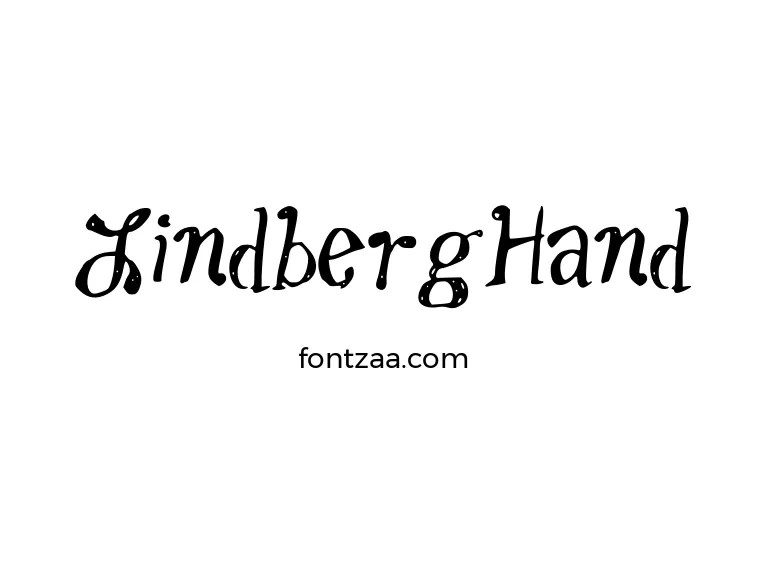
LindbergHand Font introduces a elegant typographic style that can give creative projects a more individual appearance. Designers exploring a elegant typeface can use LindbergHand Font to add a more recognizable visual voice to creative display work. Its letter shapes become especially noticeable at larger sizes, where spacing and proportions can be explored more clearly. Using generous space around the lettering can help the details of the typeface remain visible instead of competing with other elements. Different color combinations can make the same font feel subtle, energetic, premium or highly decorative. The font can be considered for projects such as invitations, wedding stationery, signatures, quotes and elegant branding. Previewing the final layout on both large and small screens helps identify spacing and readability problems early. A clean serif or sans serif companion can handle smaller text while this font remains focused on headlines and key messages. According to the available font information, the typeface is associated with Unknown Publisher. Current license information is shown as Free for personal use; checking the original documentation is recommended before client or commercial work. The most effective treatment will vary by project, so designers should compare several versions before finalizing the artwork.
Designers exploring a elegant typeface can use LindbergHand Font to add a more recognizable visual voice to headlines, branding and promotional layouts. Its letter shapes become especially noticeable at larger sizes, where spacing and proportions can be explored more clearly. Using generous space around the lettering can help the details of the typeface remain visible instead of competing with other elements. The font can work as the primary visual element in a minimal layout or as part of a more detailed composition. The font can be considered for projects such as invitations, wedding stationery, signatures, quotes and elegant branding. Print and digital layouts may require different sizing and spacing, so testing the actual output dimensions is recommended. Keeping secondary typography simple often allows the distinctive qualities of the main font to remain more visible. Source metadata currently associates the font with Unknown Publisher. Current license information is shown as Free for personal use; checking the original documentation is recommended before client or commercial work. Testing the font with the actual project text can provide a much better impression than viewing isolated sample characters.
LindbergHand Font brings a elegant personality to typography and gives designers a flexible starting point for digital and print projects. The typeface can change considerably depending on tracking, scale, alignment, background and surrounding imagery. Different color combinations can make the same font feel subtle, energetic, premium or highly decorative. Its letter shapes become especially noticeable at larger sizes, where spacing and proportions can be explored more clearly. The font can be considered for projects such as invitations, wedding stationery, signatures, quotes and elegant branding. Keeping secondary typography simple often allows the distinctive qualities of the main font to remain more visible. A clean serif or sans serif companion can handle smaller text while this font remains focused on headlines and key messages. Source metadata currently associates the font with Unknown Publisher. License details are currently listed as Free for personal use. Users should verify the supplied documentation before using the font in products or paid projects. A few quick layout variations can help determine where the font creates the strongest visual result.
LindbergHand Font Family
The LindbergHand Font Family can be explored in multiple compositions by adjusting typography size, spacing and surrounding design elements. With its distinctive letterforms, LindbergHand Font can introduce a elegant character into font-family exploration. Different color combinations can make the same font feel subtle, energetic, premium or highly decorative. Its letter shapes become especially noticeable at larger sizes, where spacing and proportions can be explored more clearly. The font can work as the primary visual element in a minimal layout or as part of a more detailed composition. Designers may explore it across invitations, wedding stationery, signatures, quotes and elegant branding, depending on the tone and requirements of the project. Previewing the final layout on both large and small screens helps identify spacing and readability problems early. For layouts containing longer information, pairing it with a simpler supporting typeface can improve readability and hierarchy. The designer or publisher information available for this typeface is Unknown Publisher. Current license information is shown as Free for personal use; checking the original documentation is recommended before client or commercial work. The most effective treatment will vary by project, so designers should compare several versions before finalizing the artwork.
Branding Ideas With LindbergHand Font
LindbergHand Font stands out through its individual shapes and can become an important visual element in logos, wordmarks and visual identity systems. The font can work as the primary visual element in a minimal layout or as part of a more detailed composition. Testing several arrangements before choosing the final version can reveal which characteristics of the typeface work best. Its letter shapes become especially noticeable at larger sizes, where spacing and proportions can be explored more clearly. Creative uses may range from invitations, wedding stationery, signatures, quotes and elegant branding, with different results depending on scale and layout. Designers should evaluate the typeface inside the real project because a standalone preview cannot show every possible visual combination. A clean serif or sans serif companion can handle smaller text while this font remains focused on headlines and key messages. According to the available font information, the typeface is associated with Unknown Publisher. License details are currently listed as Free for personal use. Users should verify the supplied documentation before using the font in products or paid projects. Its final appearance will depend heavily on the surrounding colors, imagery, spacing and supporting typography.
Where to Use LindbergHand Font
LindbergHand Font stands out through its individual shapes and can become an important visual element in practical ways designers can use the typeface. Its letter shapes become especially noticeable at larger sizes, where spacing and proportions can be explored more clearly. Testing several arrangements before choosing the final version can reveal which characteristics of the typeface work best. The font can work as the primary visual element in a minimal layout or as part of a more detailed composition. Possible applications include invitations, wedding stationery, signatures, quotes and elegant branding. For layouts containing longer information, pairing it with a simpler supporting typeface can improve readability and hierarchy. Keeping secondary typography simple often allows the distinctive qualities of the main font to remain more visible. Source metadata currently associates the font with Unknown Publisher. License details are currently listed as Free for personal use. Users should verify the supplied documentation before using the font in products or paid projects. The most effective treatment will vary by project, so designers should compare several versions before finalizing the artwork.
LindbergHand Font in Digital and Poster Design
LindbergHand Font stands out through its individual shapes and can become an important visual element in posters, campaigns, thumbnails and promotional content. The font can work as the primary visual element in a minimal layout or as part of a more detailed composition. The typeface can change considerably depending on tracking, scale, alignment, background and surrounding imagery. Different color combinations can make the same font feel subtle, energetic, premium or highly decorative. Possible applications include invitations, wedding stationery, signatures, quotes and elegant branding. Previewing the final layout on both large and small screens helps identify spacing and readability problems early. Print and digital layouts may require different sizing and spacing, so testing the actual output dimensions is recommended. The designer or publisher information available for this typeface is Unknown Publisher. The listed license is Free for personal use, although users should still review the original font package before commercial use. A few quick layout variations can help determine where the font creates the strongest visual result.
What Makes LindbergHand Font Stand Out
LindbergHand Font stands out through its individual shapes and can become an important visual element in the visual characteristics and design personality of the typeface. The font can work as the primary visual element in a minimal layout or as part of a more detailed composition. Its letter shapes become especially noticeable at larger sizes, where spacing and proportions can be explored more clearly. Using generous space around the lettering can help the details of the typeface remain visible instead of competing with other elements. The font can be considered for projects such as invitations, wedding stationery, signatures, quotes and elegant branding. Previewing the final layout on both large and small screens helps identify spacing and readability problems early. Designers should evaluate the typeface inside the real project because a standalone preview cannot show every possible visual combination. The available source information lists Unknown Publisher as the designer or publisher. License details are currently listed as Free for personal use. Users should verify the supplied documentation before using the font in products or paid projects. Testing the font with the actual project text can provide a much better impression than viewing isolated sample characters.